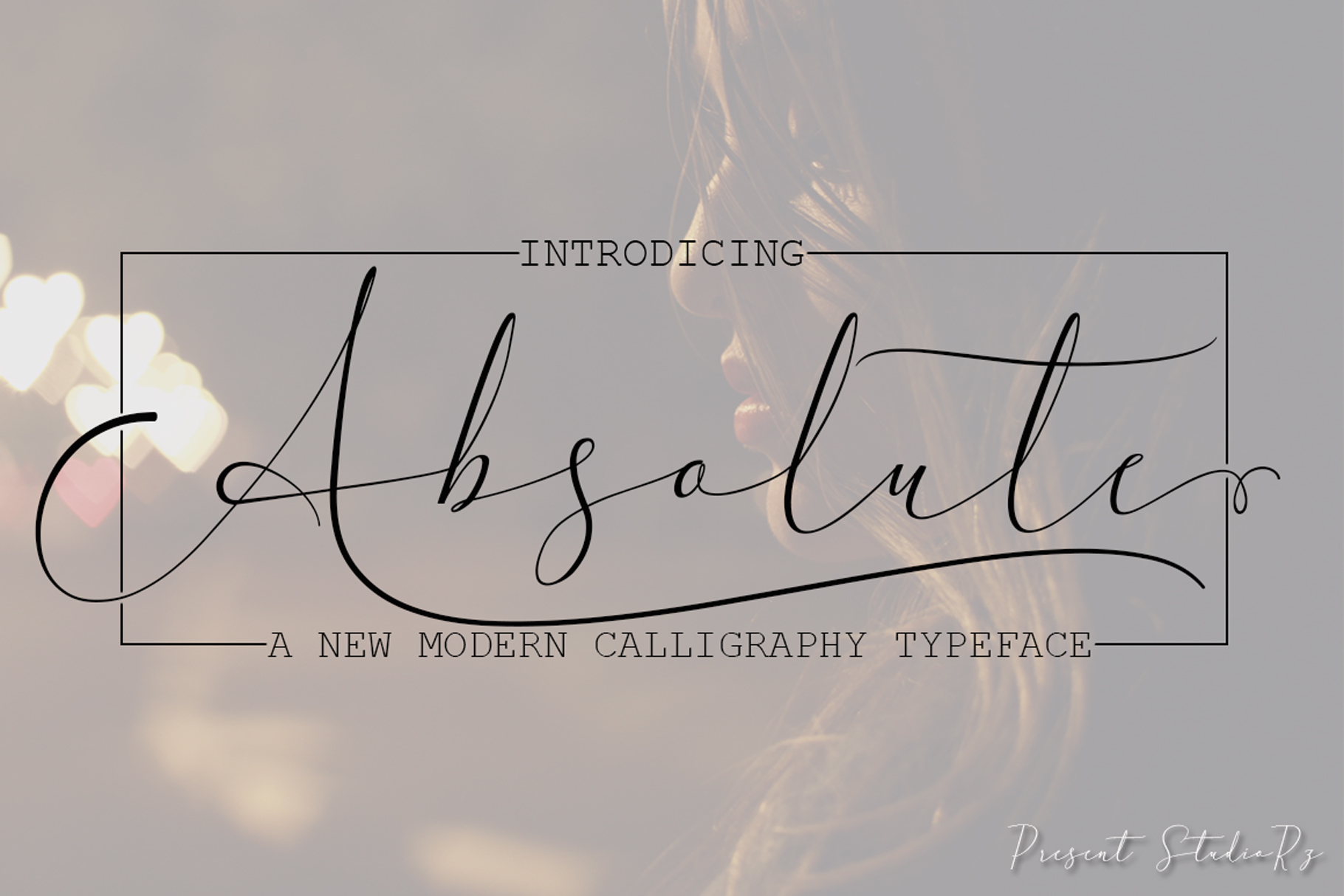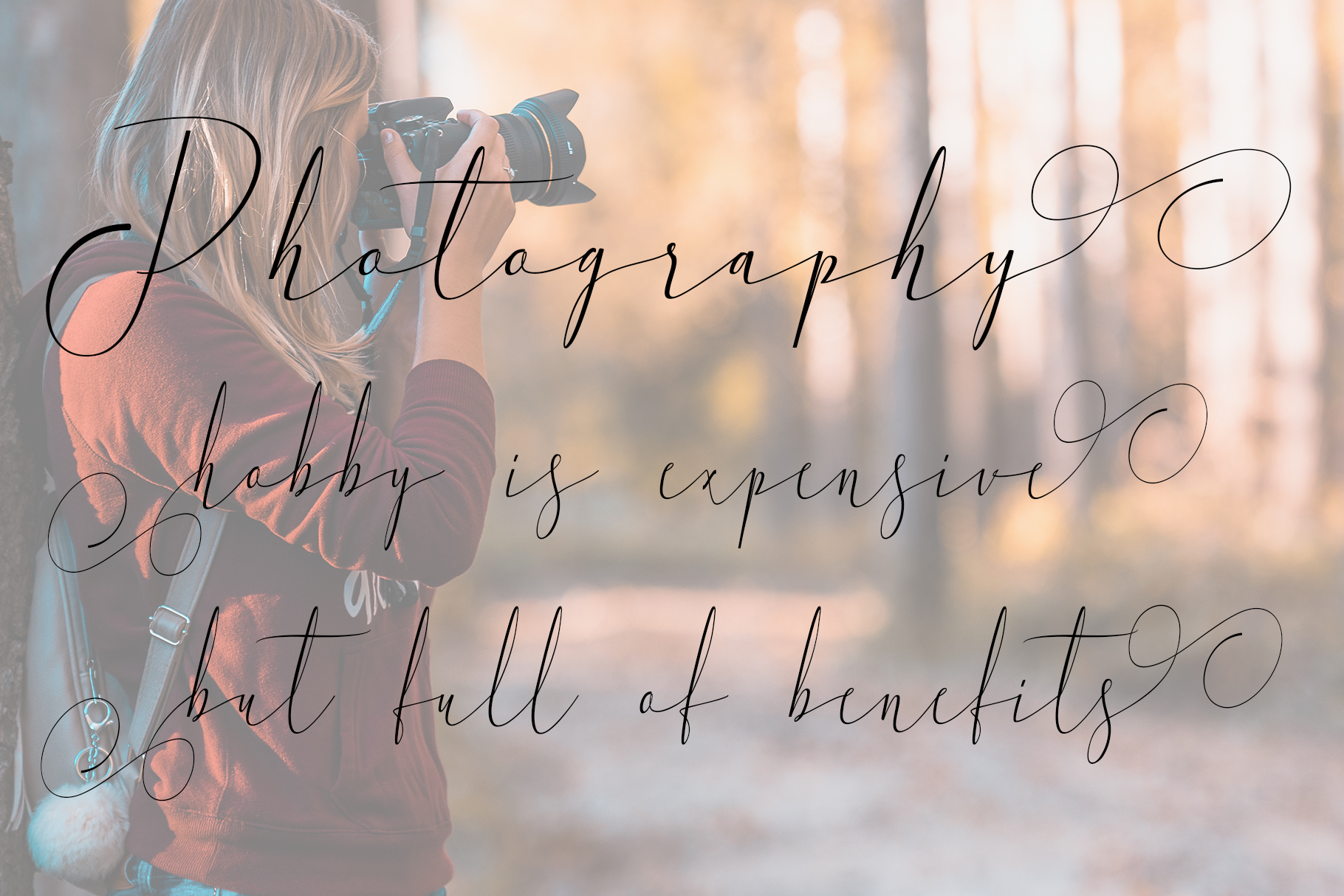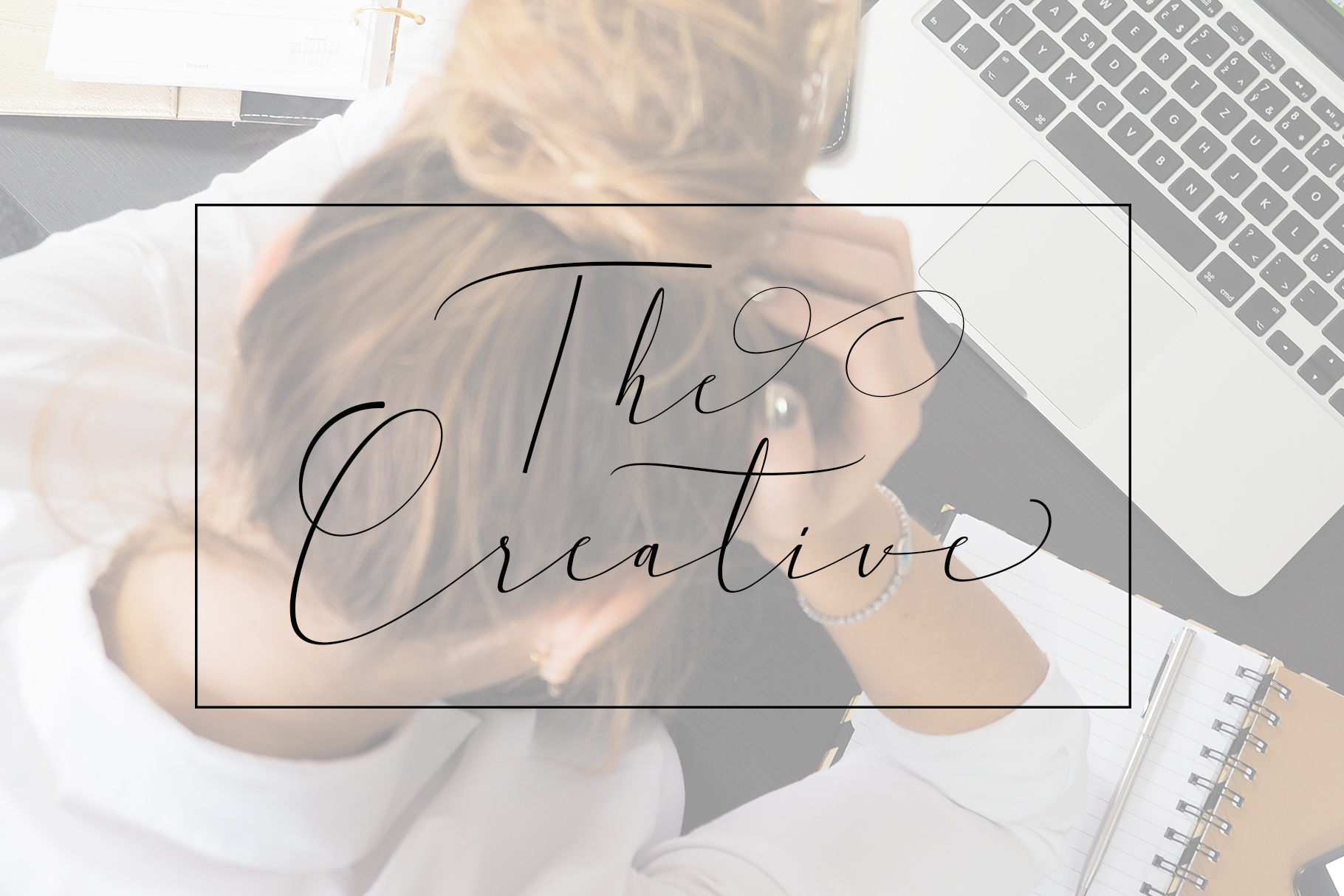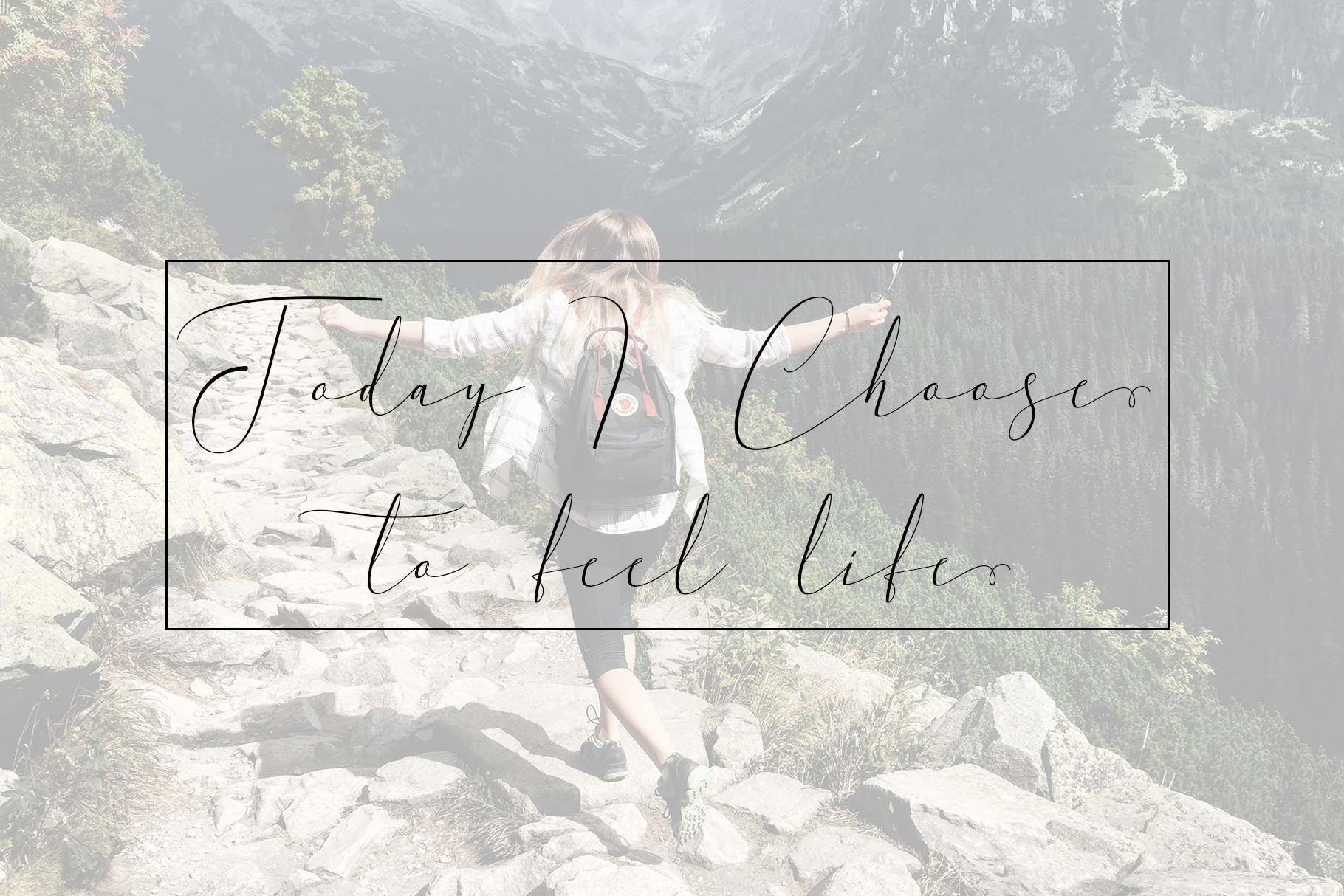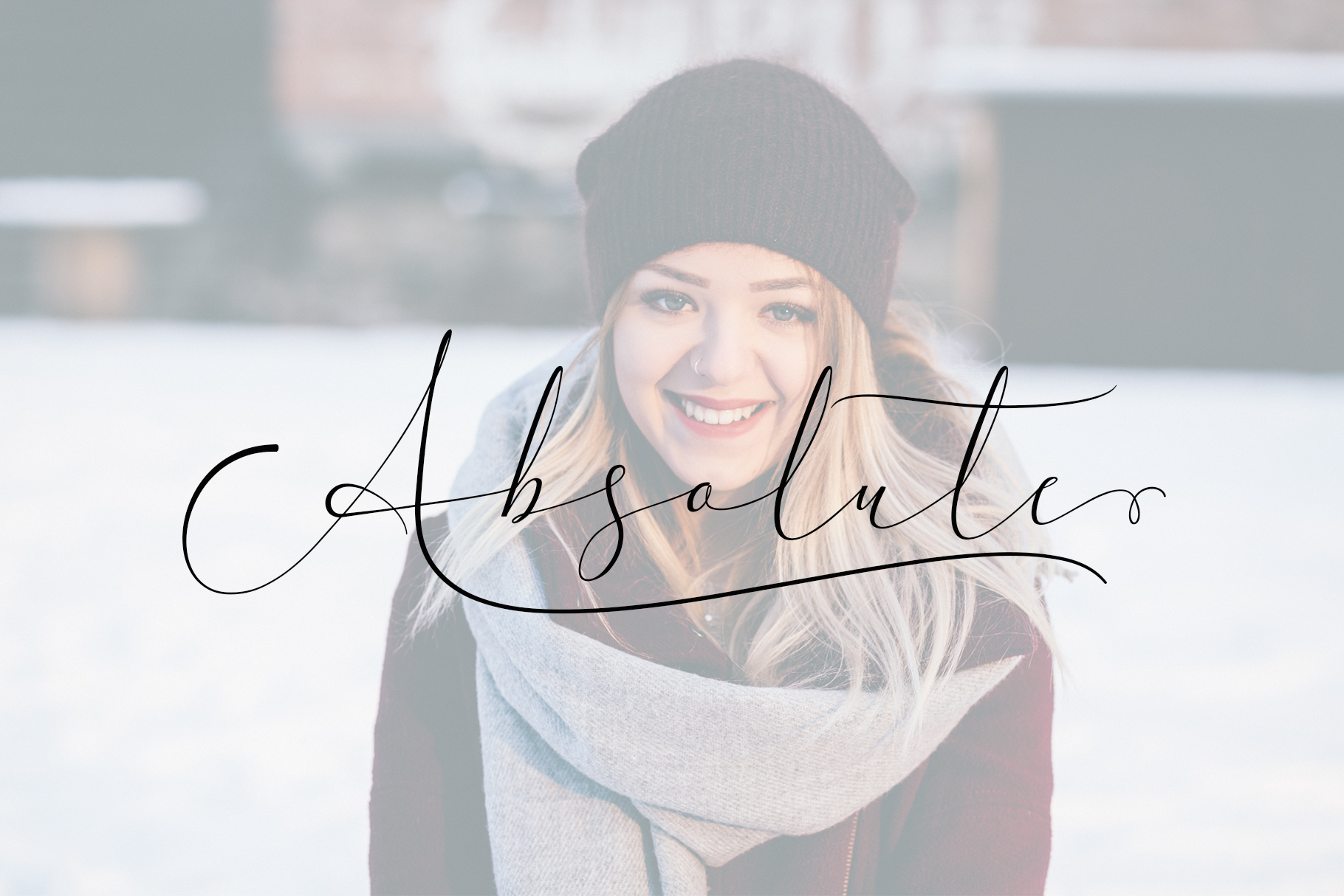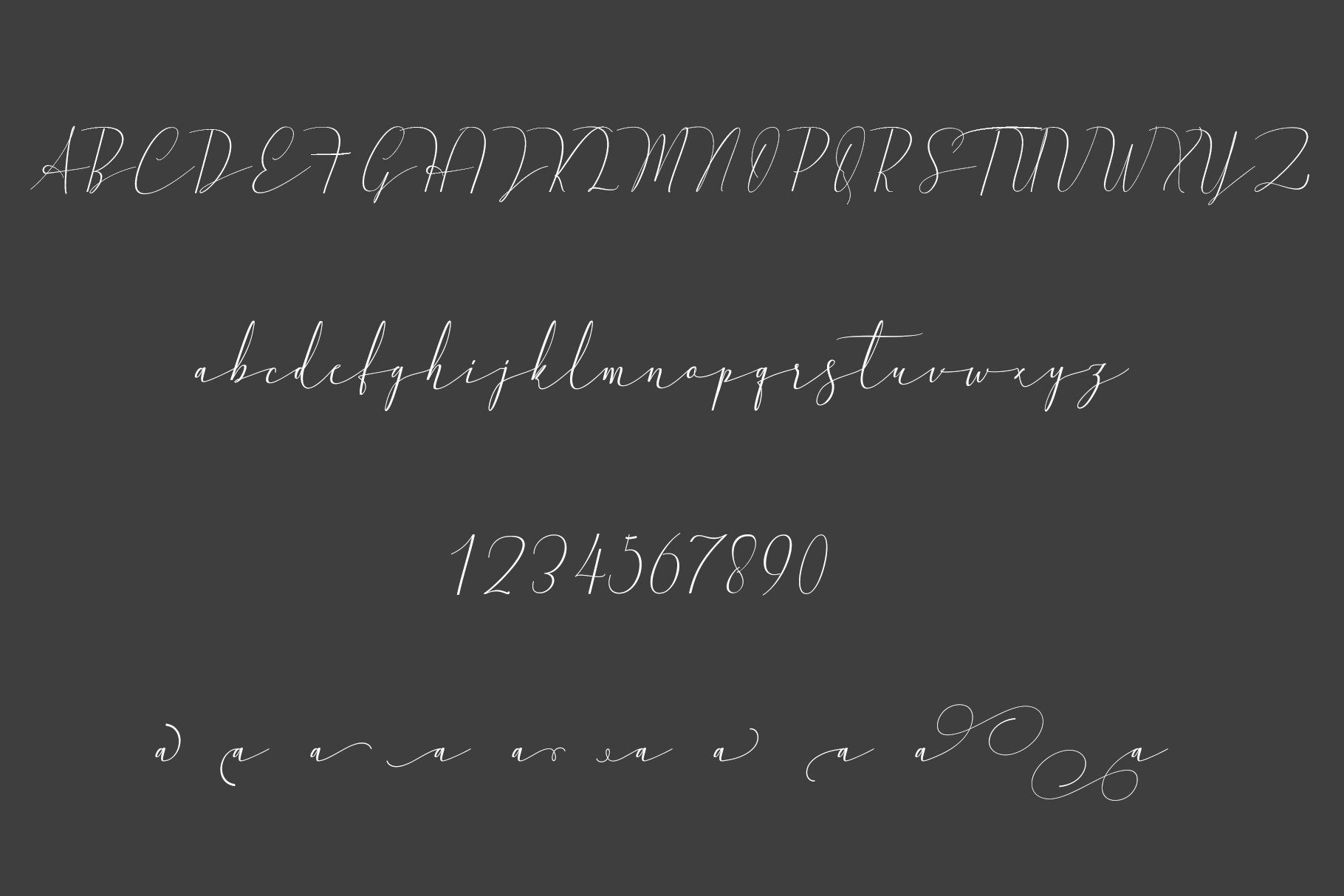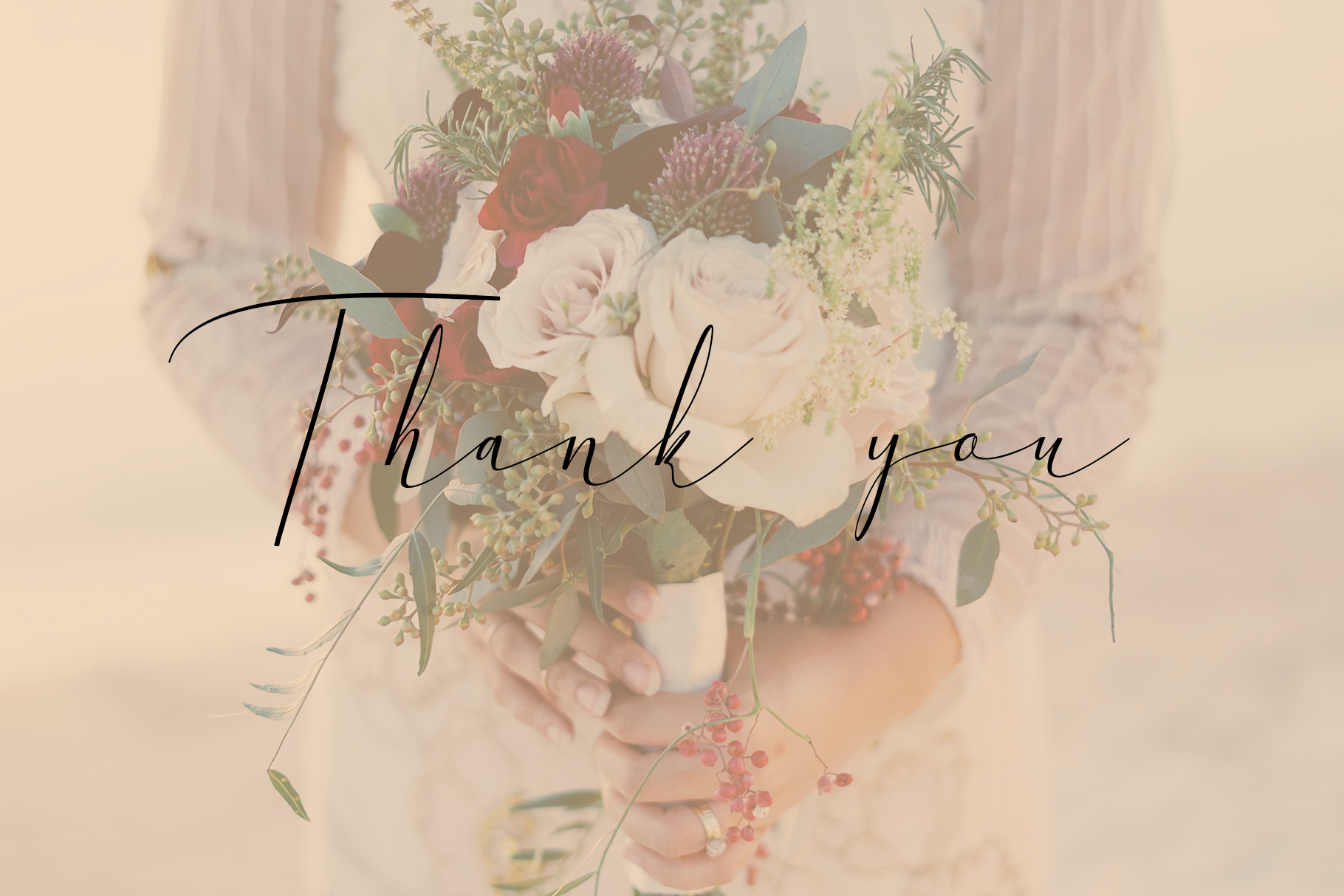
Absolute Font
About Absolute Font
The Absolute Script offers a neat, elegant handwritten typeface. It works great as a fancy font, which makes it suitable for fashion, apparel, business and much more.